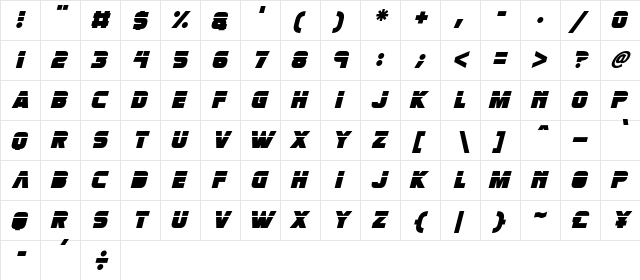
Retronoid Italic Font Preview
Retronoid Italic
Design Context for Retronoid Typeface
Retronoid has the warm character of retro typography — evoking diners, record sleeves, and the golden age of print advertising. The dynamic lean of this cut emphasises speed and emphasis in any layout.
Font Pairing: Combine Retronoid with a simple slab or neutral sans — period-accurate companions reinforce the vintage feel without competing for attention.
Pro Tip: Use Retronoid for headlines and pull quotes rather than body copy — its personality is best appreciated in short, focused bursts.